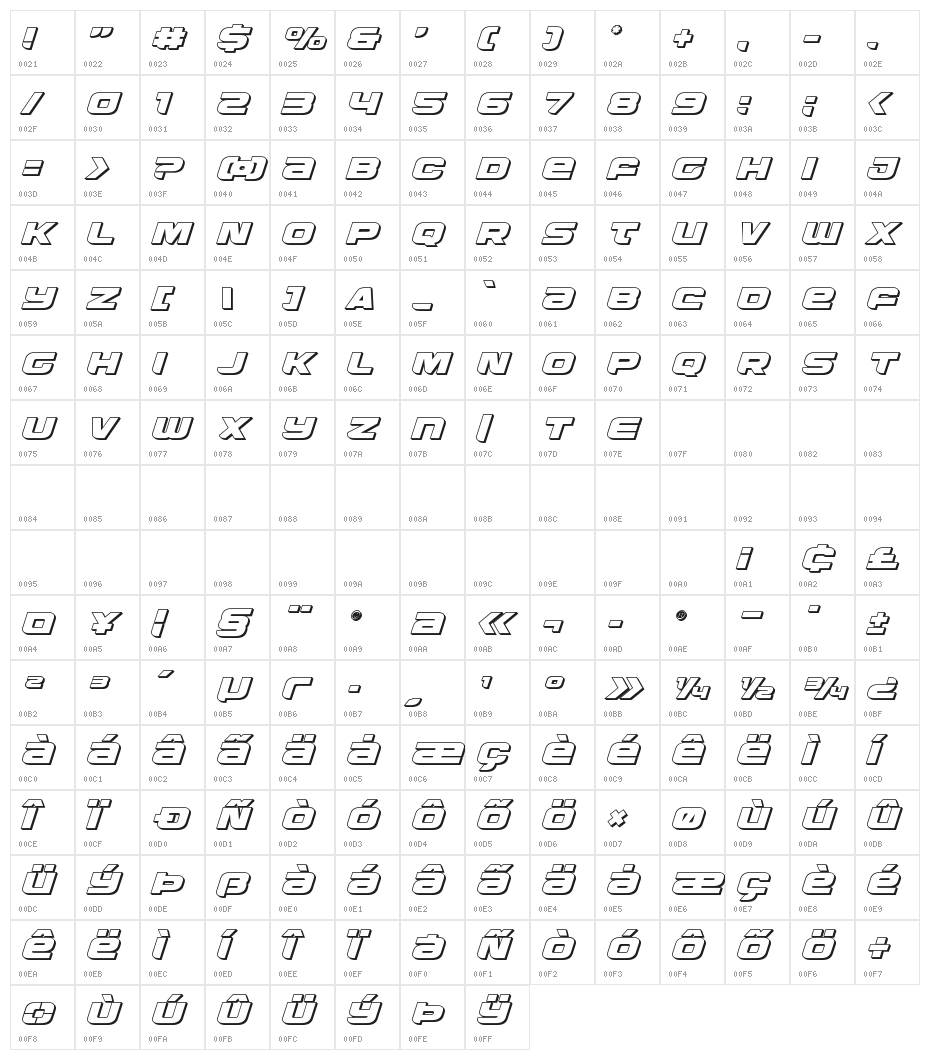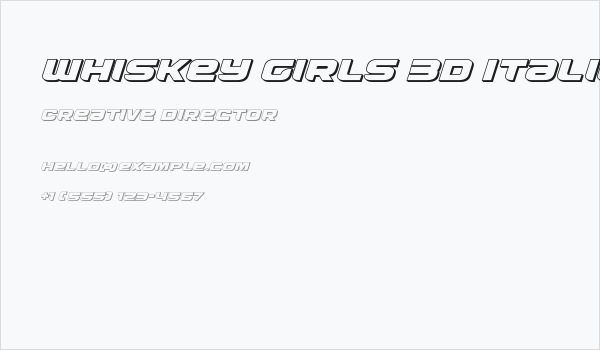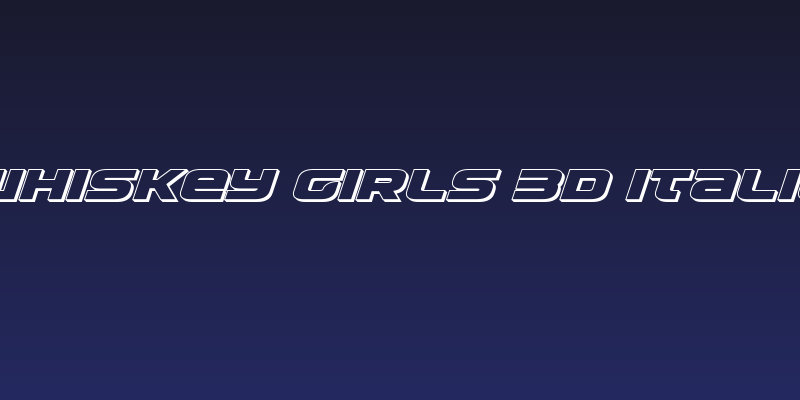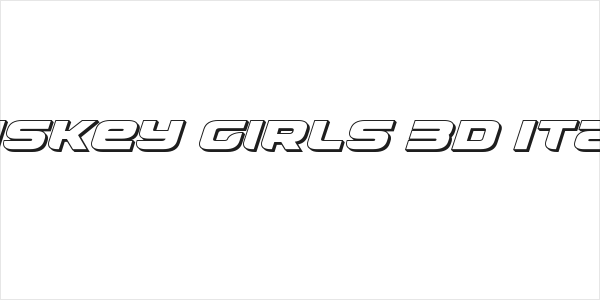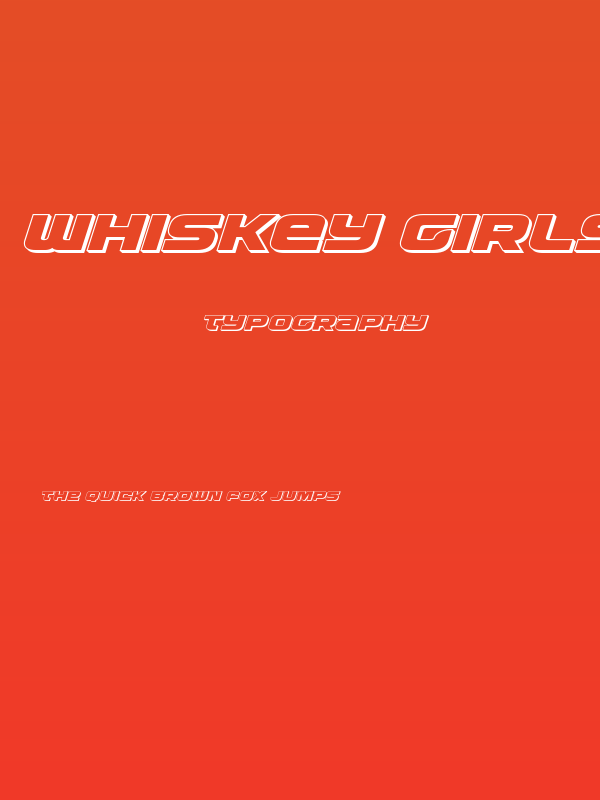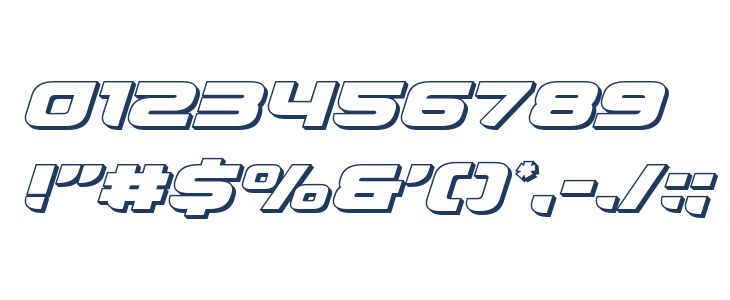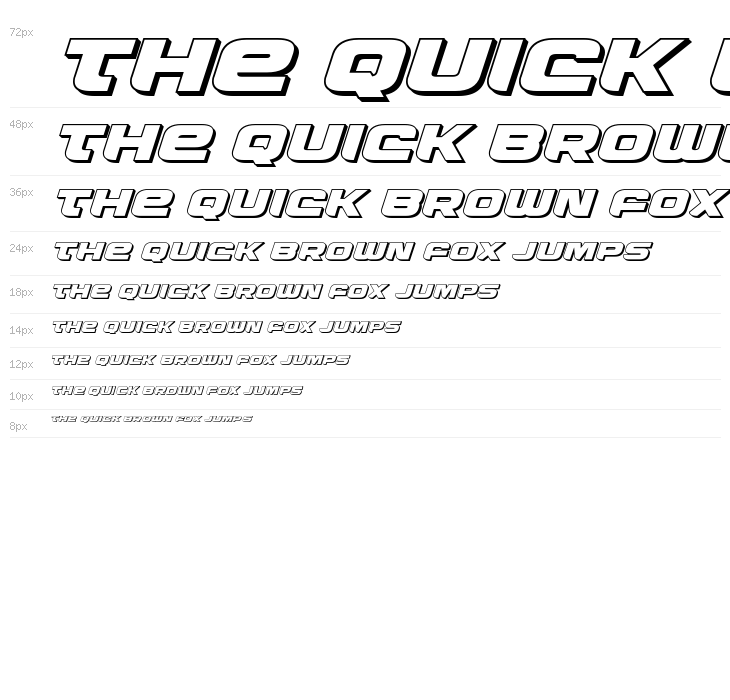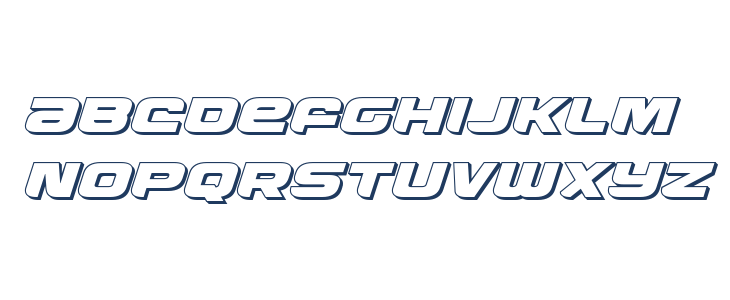
Whiskey Girls 3D Italic Font
Whiskey Girls 3D Italic Description
This font features a bold, three-dimensional style with a distinct italic slant, giving it a dynamic and modern appearance. The characters are outlined, creating a striking visual effect that enhances readability while maintaining a unique aesthetic. The uppercase and lowercase letters share a consistent design, with smooth curves and sharp angles that contribute to its futuristic look. The numerals and special characters are designed to match the overall style, ensuring a cohesive appearance across all text elements. This font is ideal for projects that require a bold statement and a touch of modern flair.
| Proposed Projects | Ideal for branding, advertising, posters, and any design project that requires a bold and modern aesthetic. |